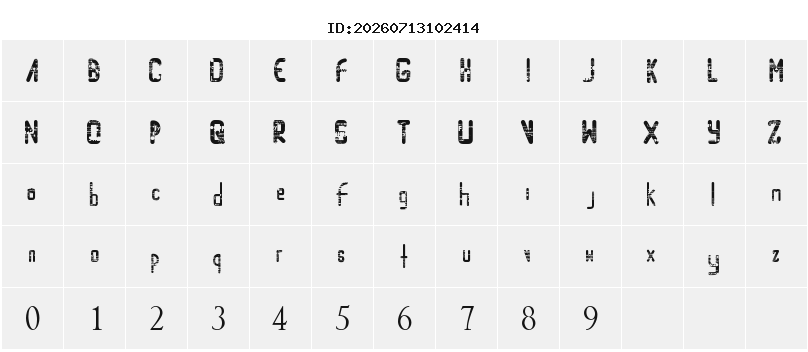
• Font Name: RandomAccessMemory
• Full Font Name: RandomAccessMemory
About RandomAccessMemory.ttf
RandomAccessMemory.ttf is a modern, elegant sans-serif font designed for ultimate readability and visual harmony. Perfect for branding, headlines, web design, and print materials.